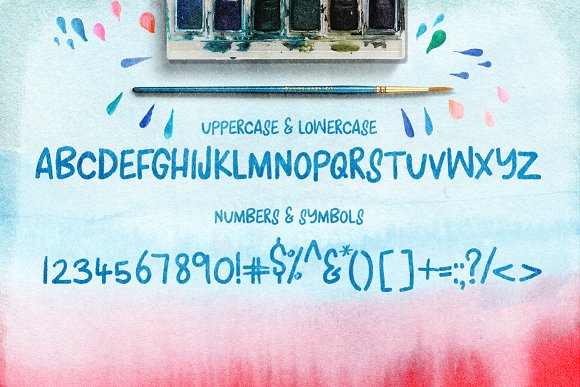
Saltie Sea Font
Font Name : Saltie Sea Font
Author : Creativeqube Design
**Dive into the Depths of Elegance with Saltie Sea Font**
Embark on a typographic escapade with Saltie Sea, an exquisite script font that will leave an indelible mark on your designs. Designed by the masterminds at Creativeqube, this font exudes a captivating allure, inviting you to explore the depths of its beauty.
**Unleash Your Inner Artist**
With its effortless flow and graceful curves, Saltie Sea is the perfect choice for discerning creatives seeking to add a touch of refinement to their work. It effortlessly captures the essence of handwritten elegance, transforming your words into works of art.
**Perfect for a Myriad of Occasions**
The boundless versatility of Saltie Sea makes it an indispensable tool for a plethora of design projects. From heartfelt invitations to captivating social media posts, this font lends its exquisite charm to any occasion. Its adaptability empowers you to express your creativity in countless ways.
**A Font that Speaks to the Heart**
Saltie Sea is more than just a font; it's a gateway to emotions. Its delicate strokes evoke a sense of nostalgia and warmth, making it ideal for conveying heartfelt messages and creating a lasting impression.
**Exceptional Quality, Uncompromising Craftsmanship**
Crafted with meticulous precision, Saltie Sea is a testament to exceptional quality. Each letterform has been lovingly designed to ensure both aesthetic appeal and functionality. Its unwavering consistency guarantees professional-grade results every time.